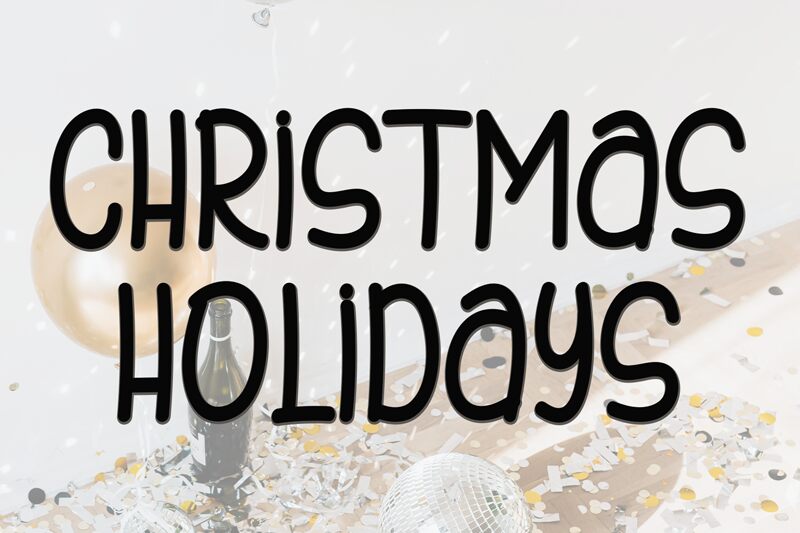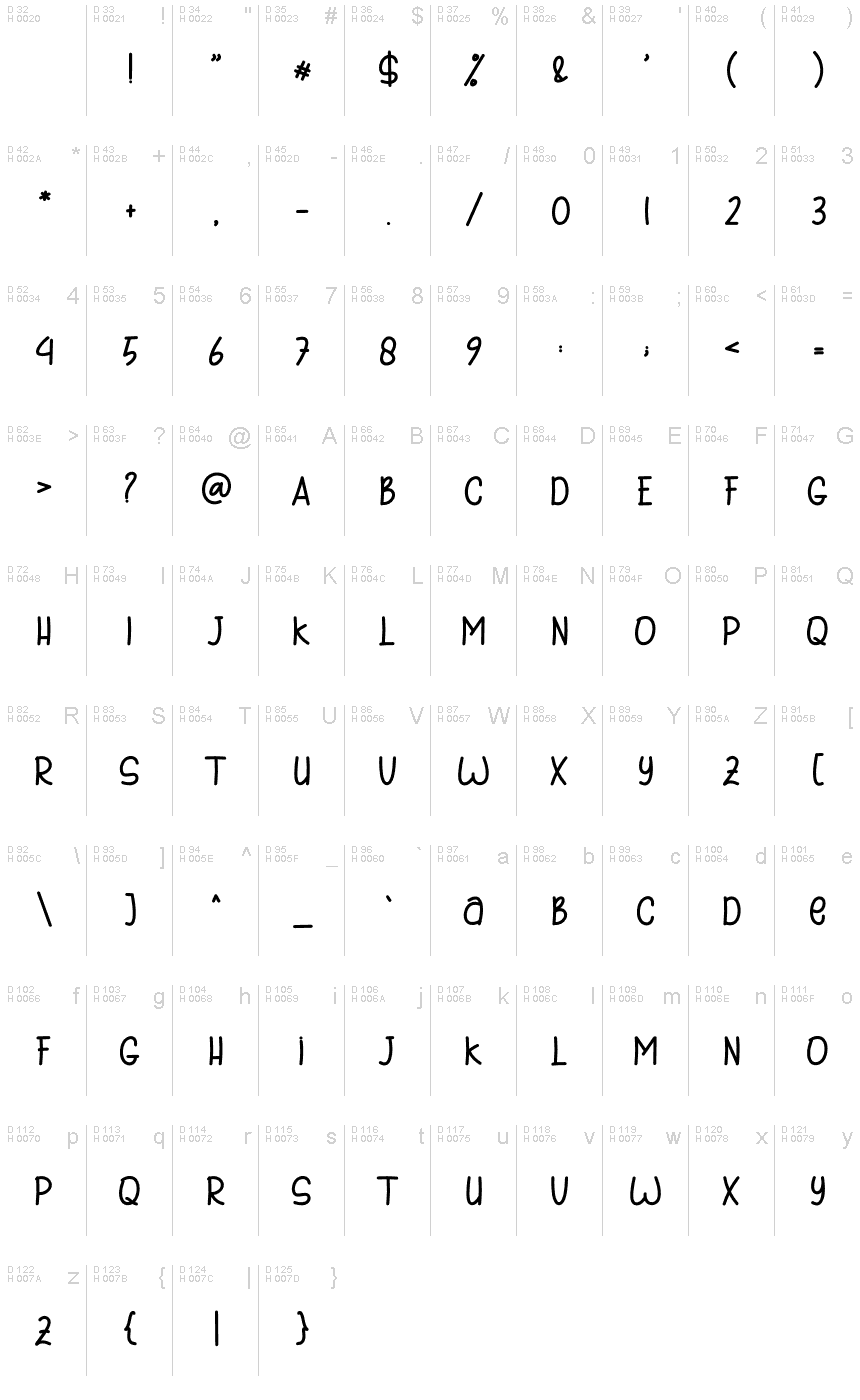
Christmas Holidays
Christmas Holidays, a creation by Etik Fatimah, brings the warmth and charm of handwritten correspondence to the digital realm. This semi-light font exudes an aesthetic that is both personal and inviting, with each letter crafted to convey the coziness of holiday greetings. Its flowing, informal style lends itself beautifully to projects that require a touch of intimacy and nostalgia.
The Christmas Holidays font is an excellent choice for designers looking to infuse their work with a sense of festive cheer without sacrificing elegance. From heartfelt cards to themed advertising campaigns, its versatile nature makes it suitable for a wide array of creative endeavors. Watch your seasonal messages come alive with this font's delightful balance between whimsy and sophistication.